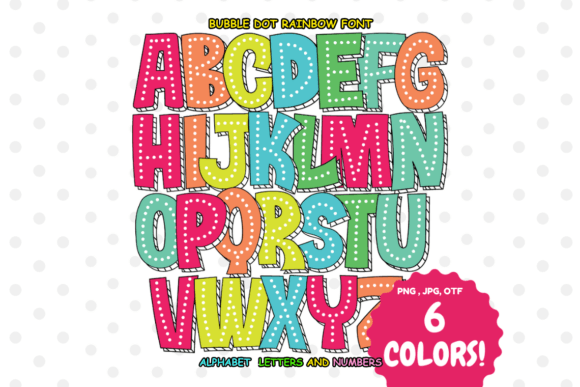
Unleash Your Creativity with the Bubble Dot Rainbow Font
Do you ever find yourself staring at a blank canvas, trying to come up with the perfect design to match your client’s vision? You know that moment when everything seems to be missing that special something? That’s where the “Bubble Dot Rainbow” Color Font comes in – a delightful font that brings a touch of whimsy and charm to your projects.
Designed to evoke the playful patterns of bubbles and the enchanting hues of rainbows, this font is perfect for creating invitations, posters, and social media graphics that stand out from the crowd. Whether you’re a seasoned designer or just starting out, the “Bubble Dot Rainbow” Color Font is a valuable addition to your toolkit, offering a unique and dynamic appearance that’s sure to make your designs pop.
Bubble Dot Rainbow Font Key Features
- Character Set: Includes a wide range of characters, including uppercase and lowercase letters, numbers, and punctuation marks.
- Unique Characteristics: The font features a playful, whimsical design with bubble-like shapes and colorful accents, making it ideal for children’s books, party invitations, and other creative projects.
- Color Options: The font comes in a range of bright, pastel colors, allowing users to customize the look and feel to suit their design needs.
Bubble Dot Rainbow Font Review
Overall, I think the Bubble Dot Rainbow Font is a fun and playful addition to any design project ✨. The font’s unique, hand-drawn style is sure to capture attention and add a touch of whimsy to your work.
The font’s versatility is one of its strongest features ✨. It can be used for a wide range of applications, from children’s books and educational materials to advertising and marketing campaigns. The font’s rainbow color scheme also adds a pop of color and can help draw the viewer’s eye to important information.
- Unique, hand-drawn style
- Highly versatile and suitable for various applications
- Rainbow color scheme adds a pop of color and visual interest
However, there are a few limitations to consider ⚠️. The font may not be suitable for formal or professional applications, as it can come across as childish or immature. Additionally, the font’s intricate details may not be readable at very small font sizes.
- May not be suitable for formal or professional applications
- Intricate details may not be readable at very small font sizes
Overall, I think the Bubble Dot Rainbow Font is a great choice for designers looking to add a touch of whimsy and fun to their work. With its unique style and versatility, it’s sure to be a hit with kids and adults alike ✨.
The Bubble Dot Rainbow Font is perfect for creating playful and eye-catching designs. Use it for:
- Wedding and event invitations.
For the best results, use the font in conjunction with bright and bold colors and playful graphics.
Alternatives to Bubble Dot Rainbow Font
Comic Sans MS is a fun, casual font that can be used for informal designs, such as social media posts, advertisements, and children’s content. It is a sans-serif font with a friendly, approachable feel. Compared to Bubble Dot Rainbow Font, Comic Sans MS is more straightforward and lacks the playful, whimsical feel of the original font.
Pacifico is a beautiful, cursive script font that can be used for elegant, high-end designs, such as wedding invitations, luxury brands, and fine art. It has a smooth, flowing feel and is perfect for creating a sense of sophistication and refinement. Compared to Bubble Dot Rainbow Font, Pacifico is more elegant and refined, lacking the playful, childlike feel of the original font.